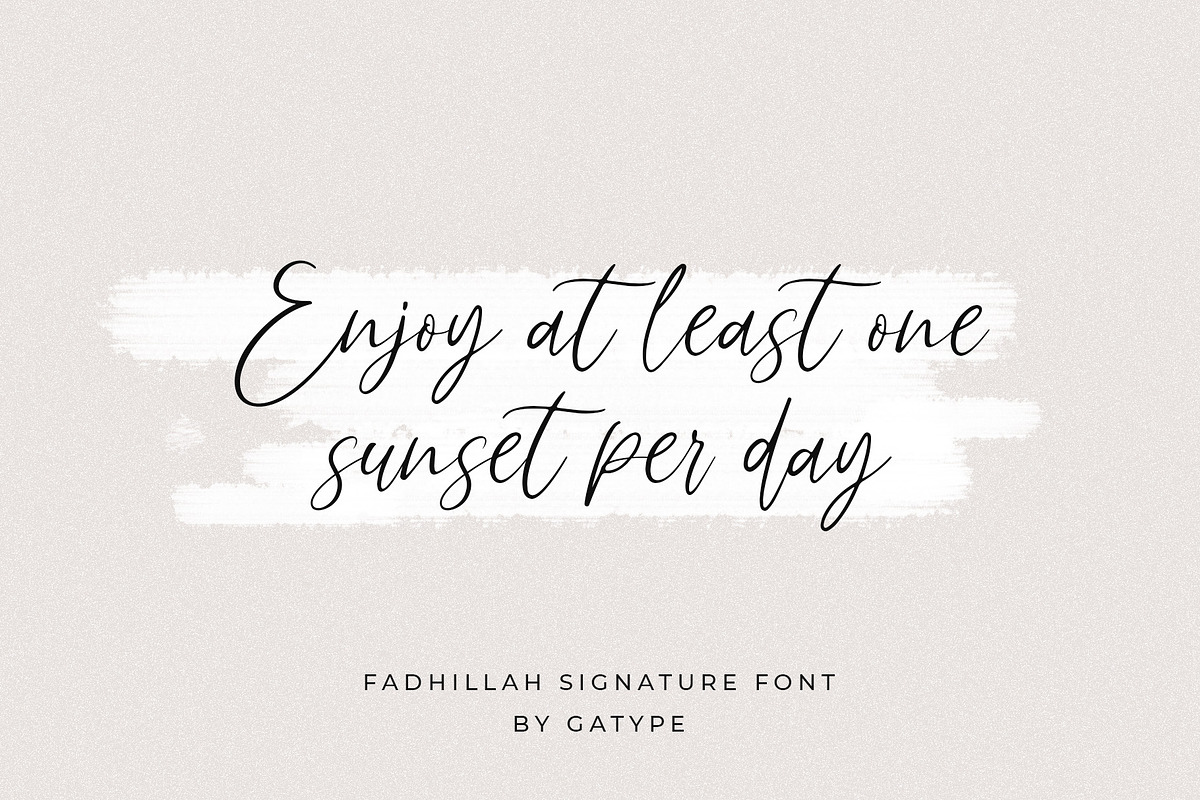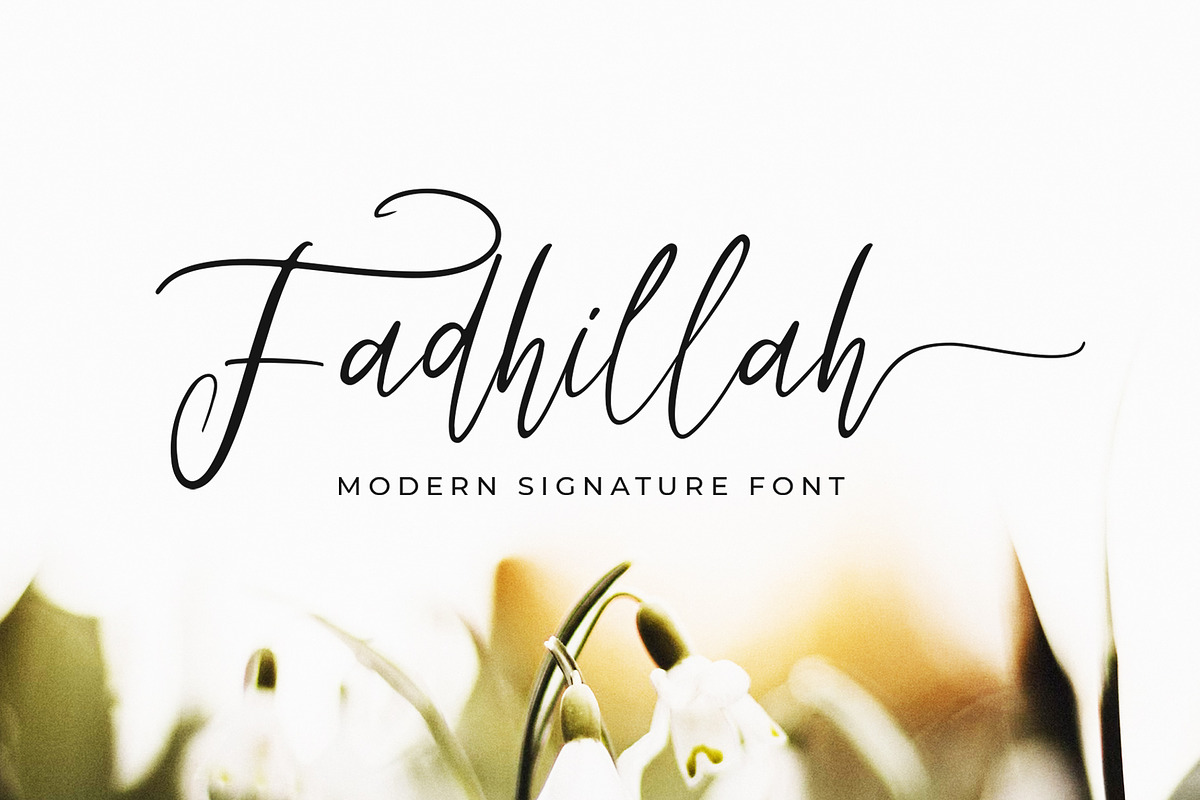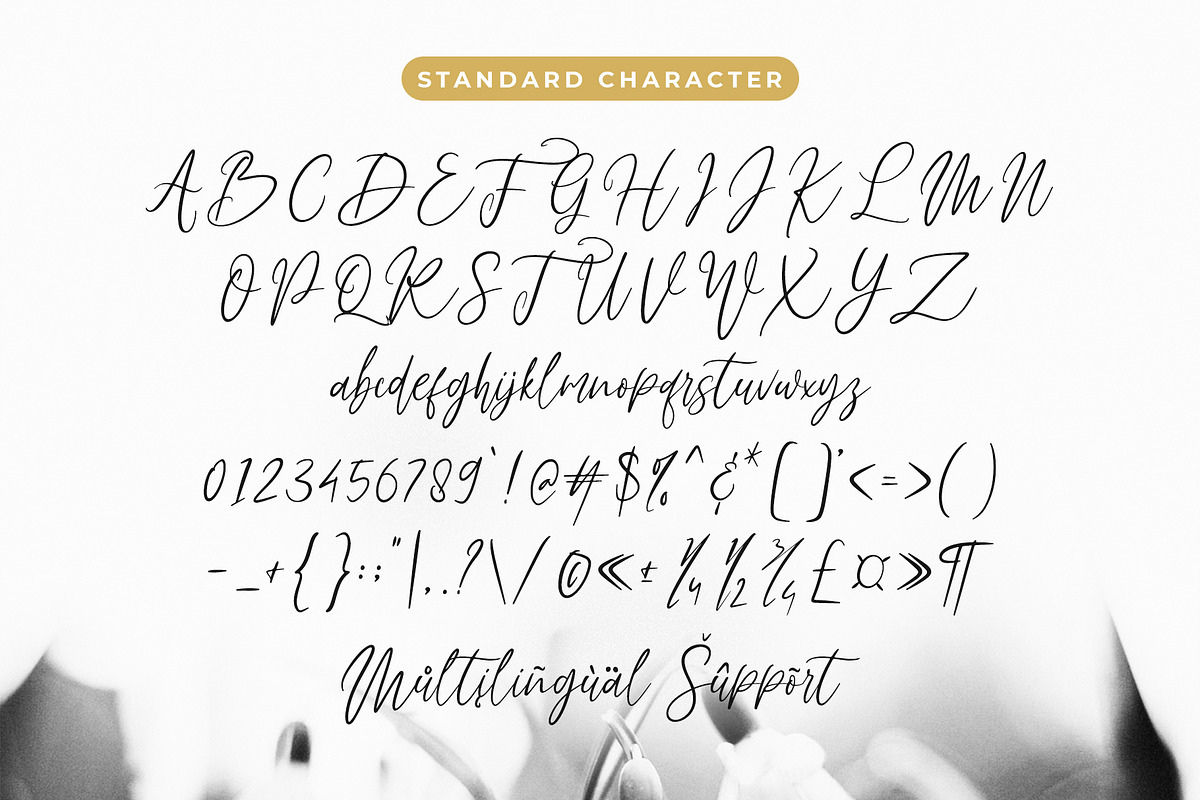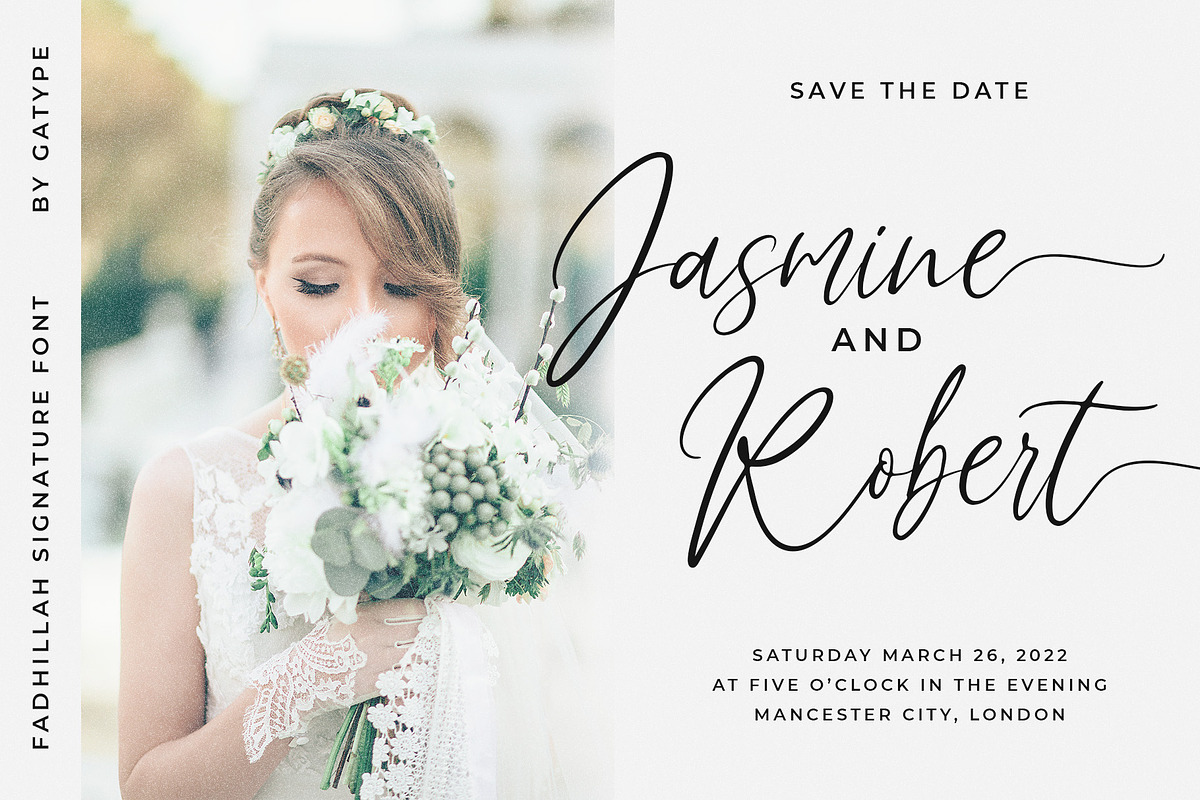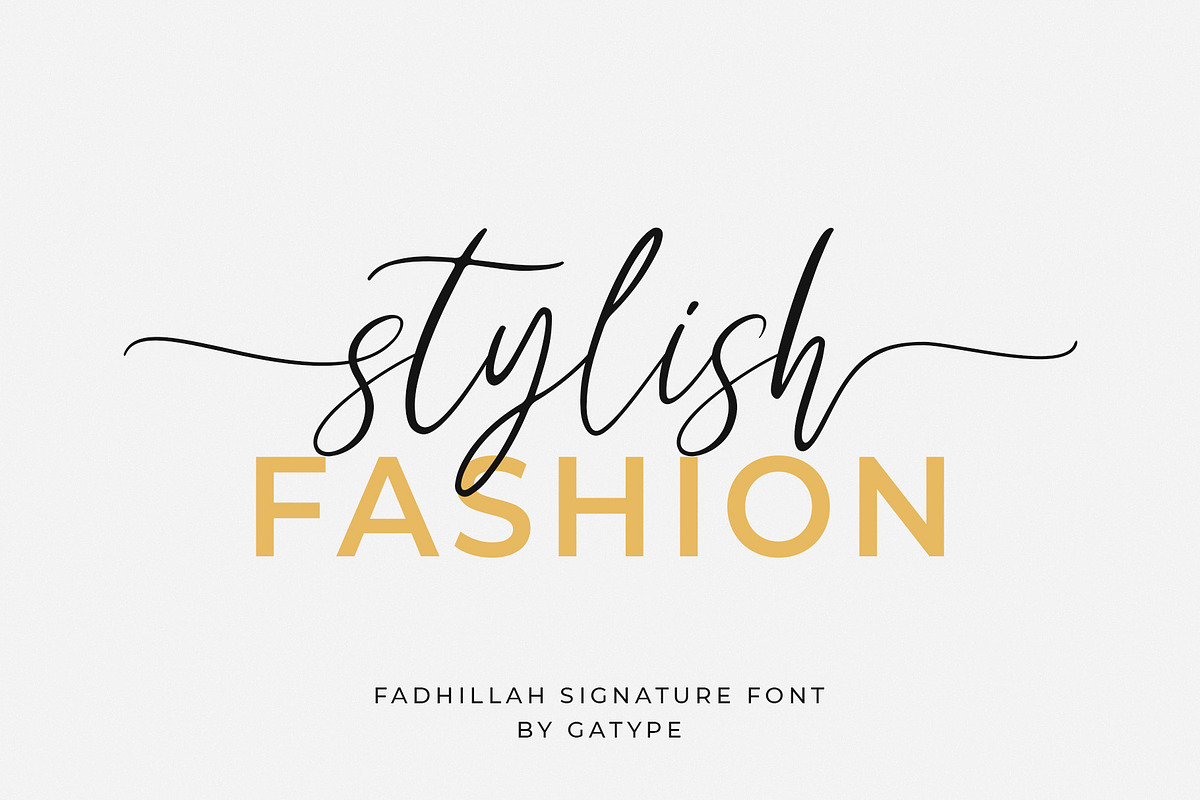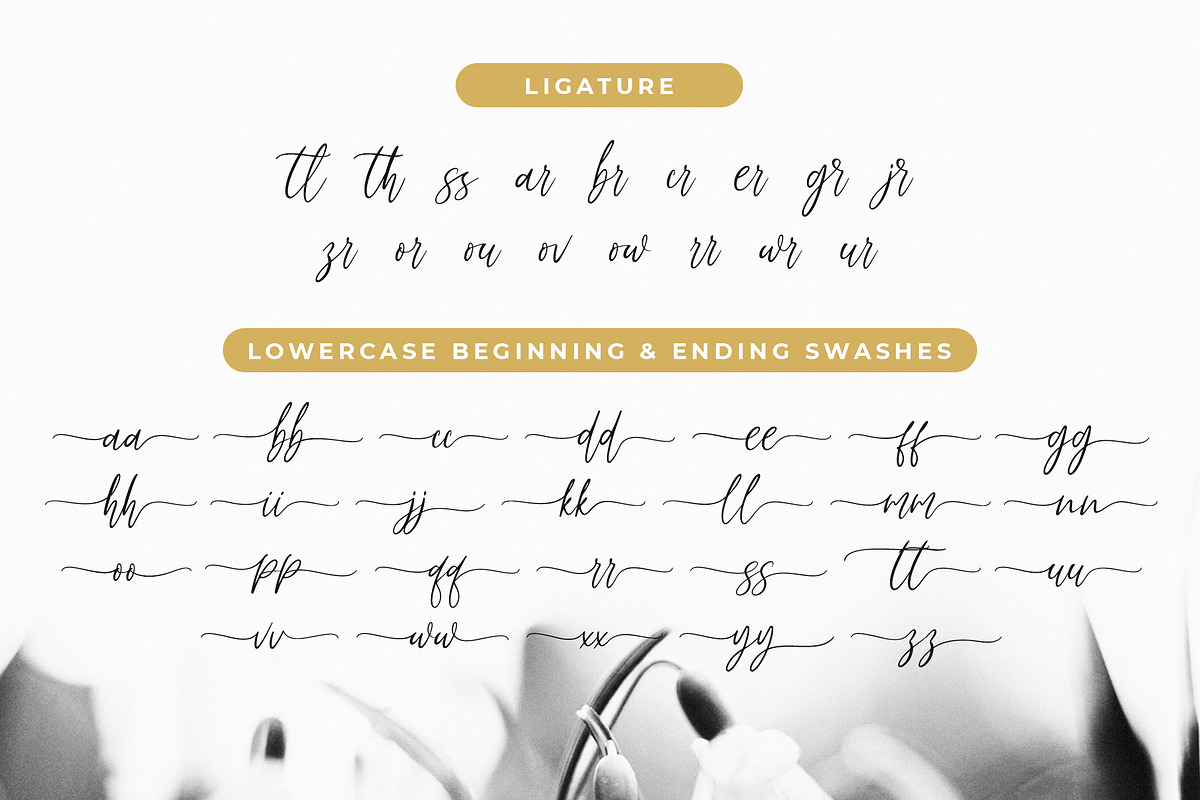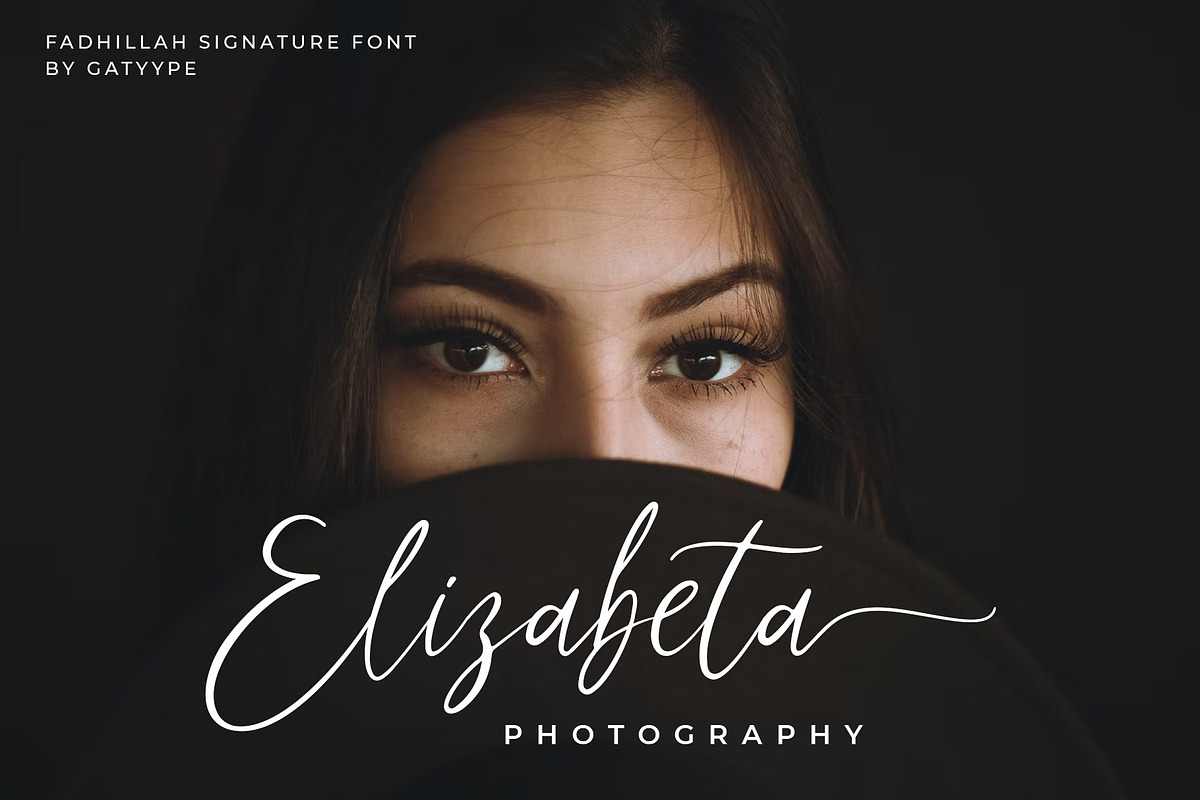
Fadhillah Signature
Fadhillah Signature is an elegant handwritten unique flow font with a natural and organic look. fadhillah Signature is perfect for branding projects, logos, wedding designs, social media posts, advertisements, product packaging, product designs, labels, photography, watermarks, invitations, stationery and any project that requires a handwritten feel.To enable the OpenType Stylistic alternative, you need a program that supports OpenType features such as Adobe Illustrator CS, Adobe Indesign & CorelDraw X6-X7, Microsoft Word 2010 or a later version. and there are additional ways to access alternatives, using the Character Map (Windows), Nexus Font (Windows), Font Book (Mac) or a software program such as PopChar (for Windows and Mac).